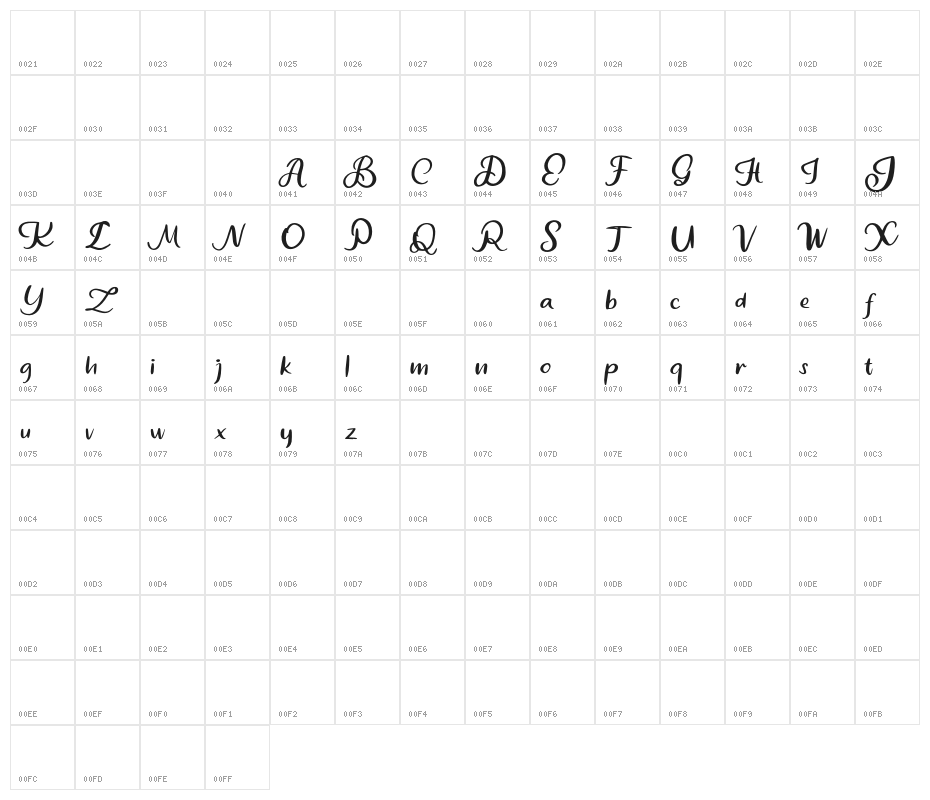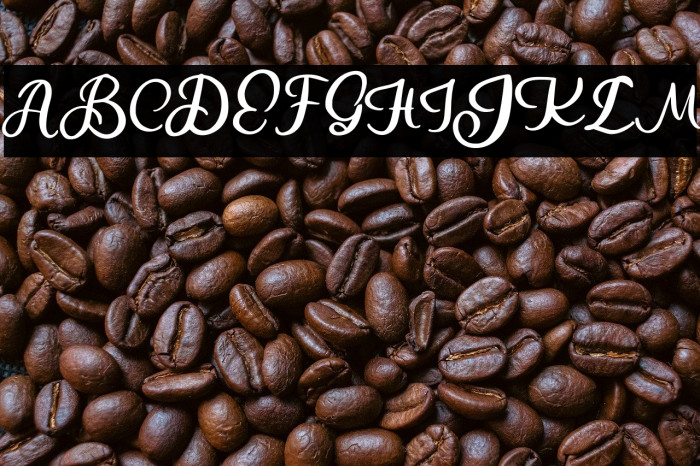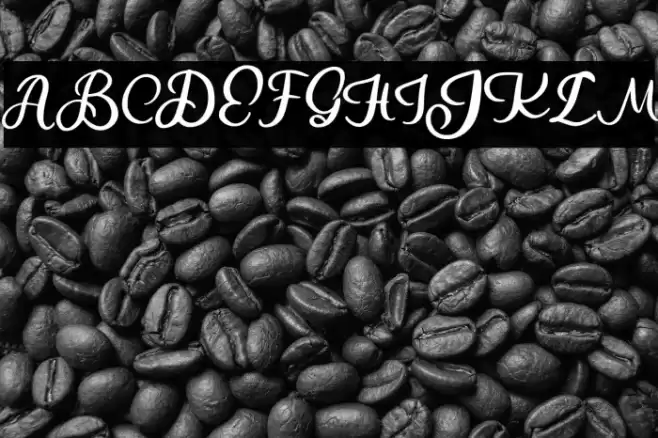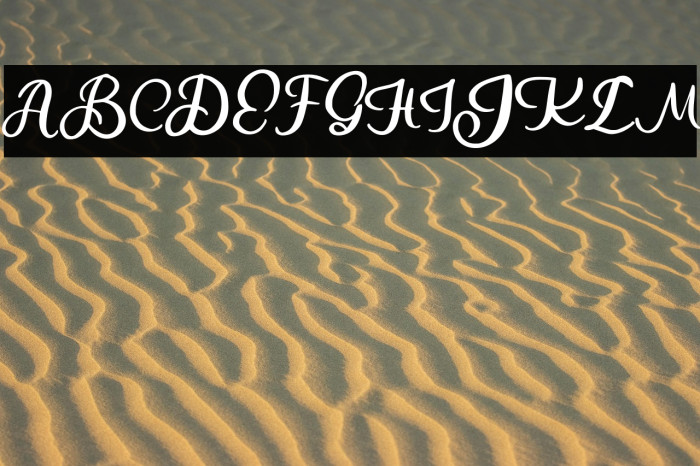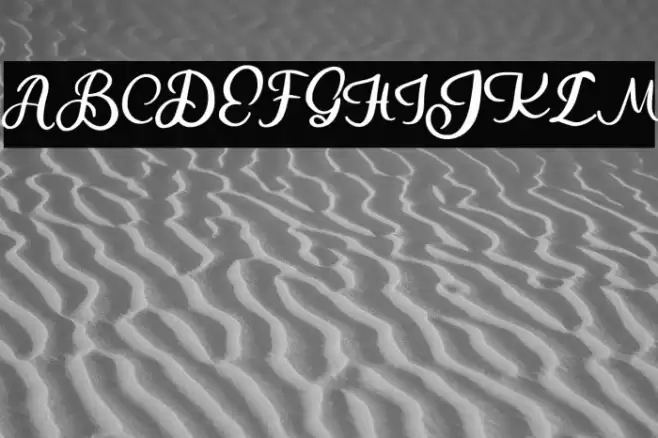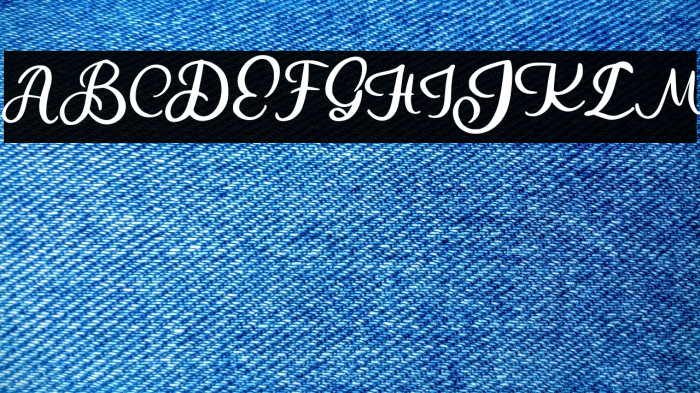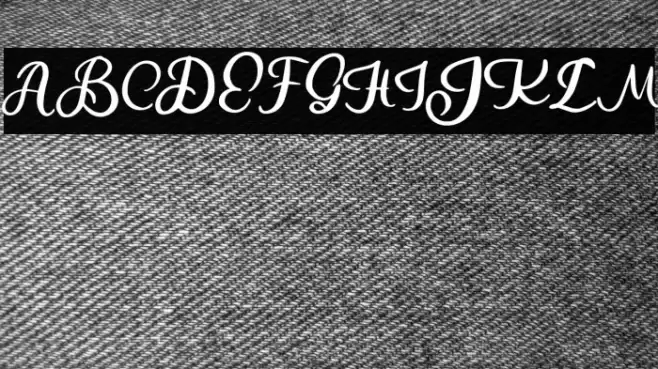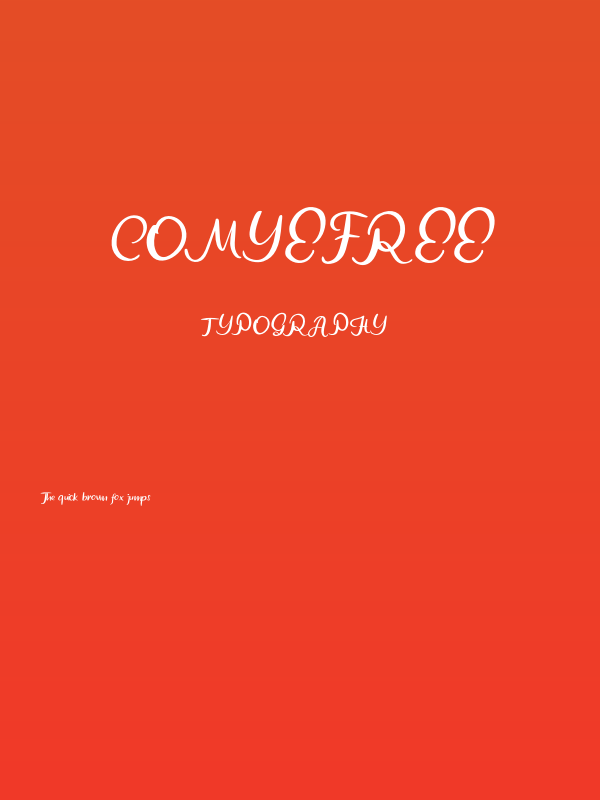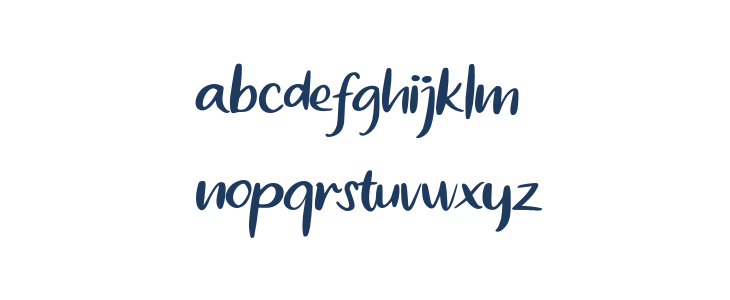
ComyeFREE Font
ComyeFREE Description
This font features a playful and flowing script style, characterized by its elegant curves and smooth transitions between letters. The uppercase letters are particularly ornate, with sweeping lines that give a sense of movement and grace. The lowercase letters maintain a consistent style, offering a harmonious blend with the uppercase. The font's design is both artistic and legible, making it suitable for creative projects. Its unique character shapes and fluidity make it stand out, providing a touch of sophistication and charm.